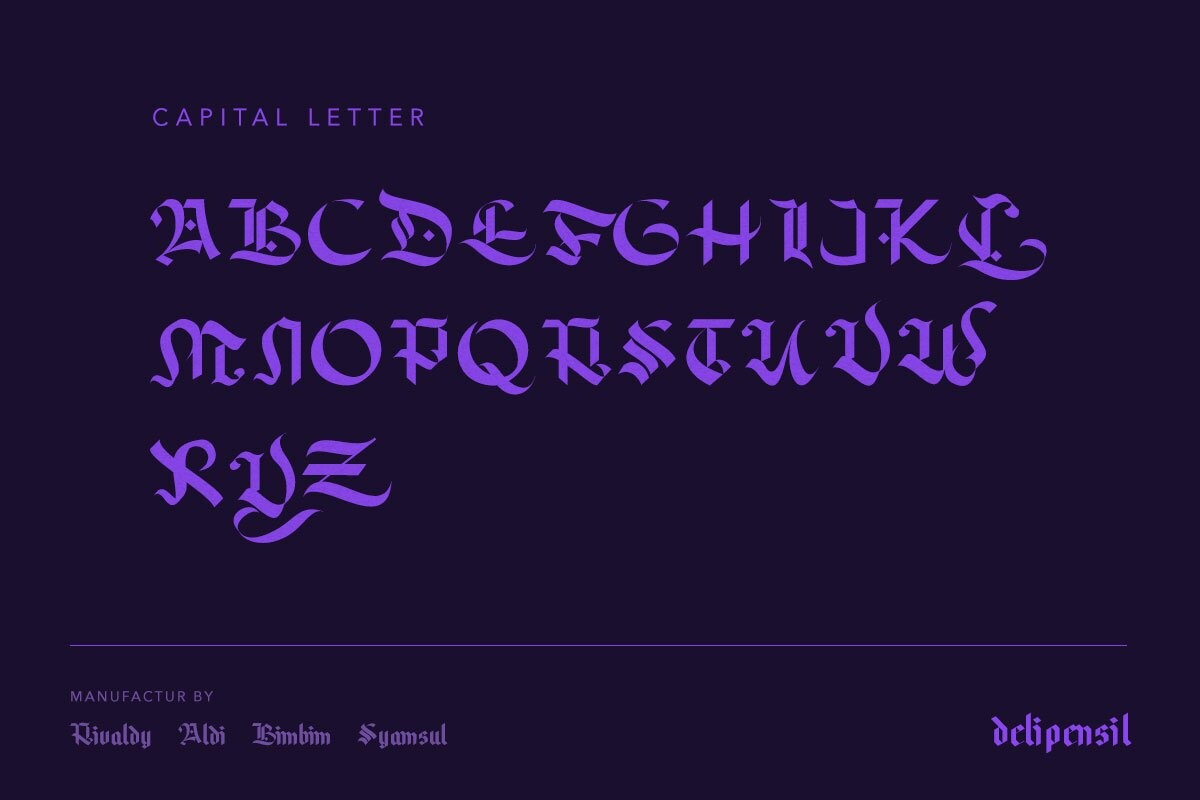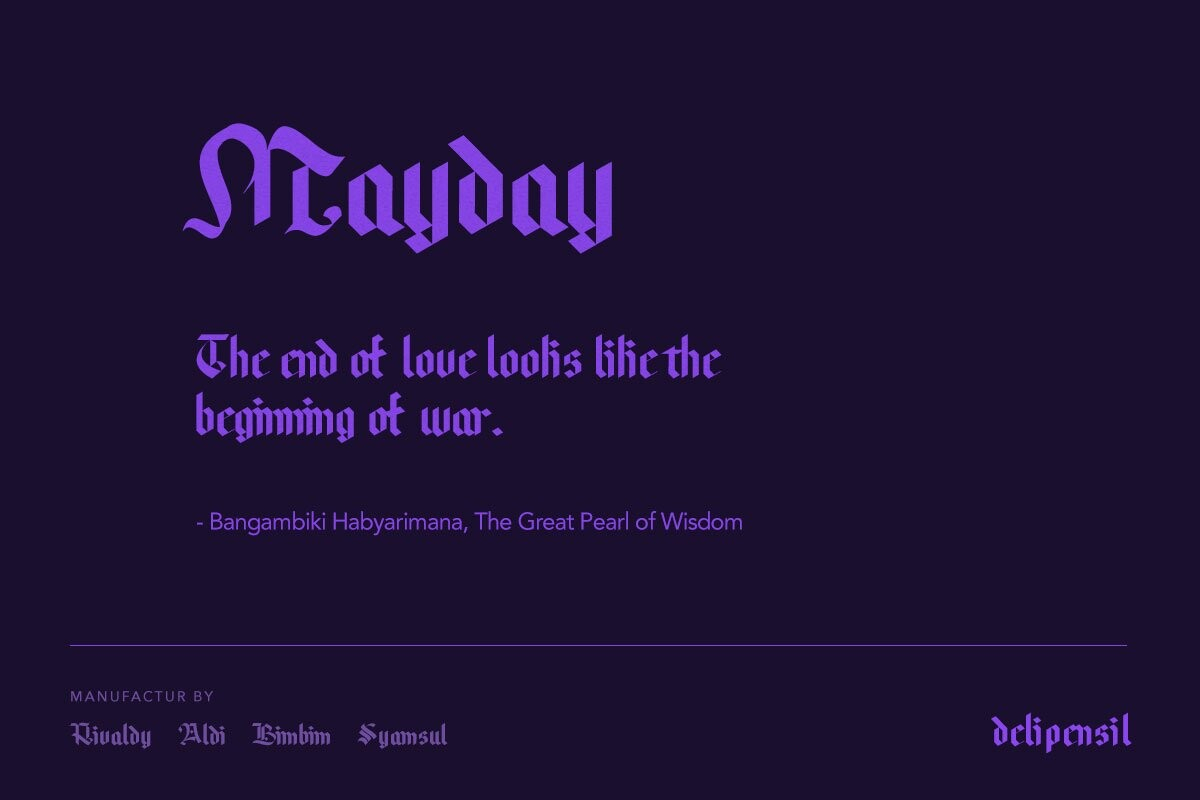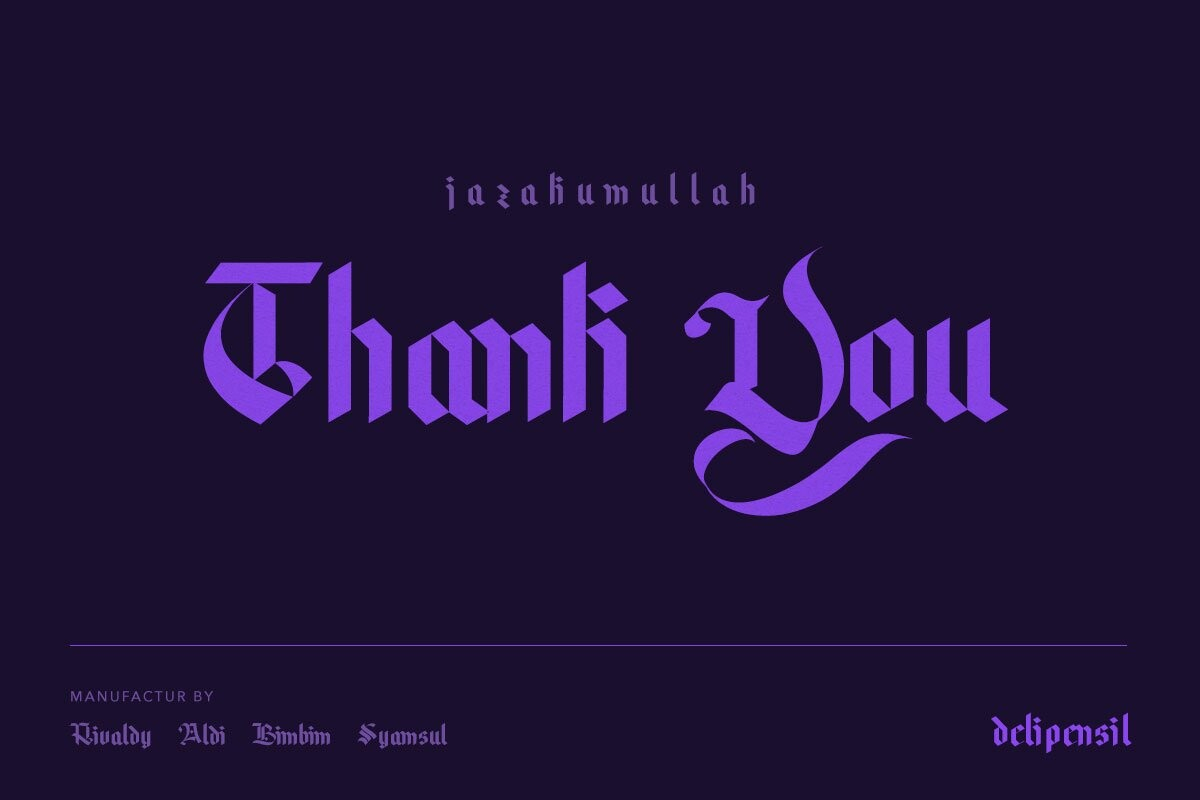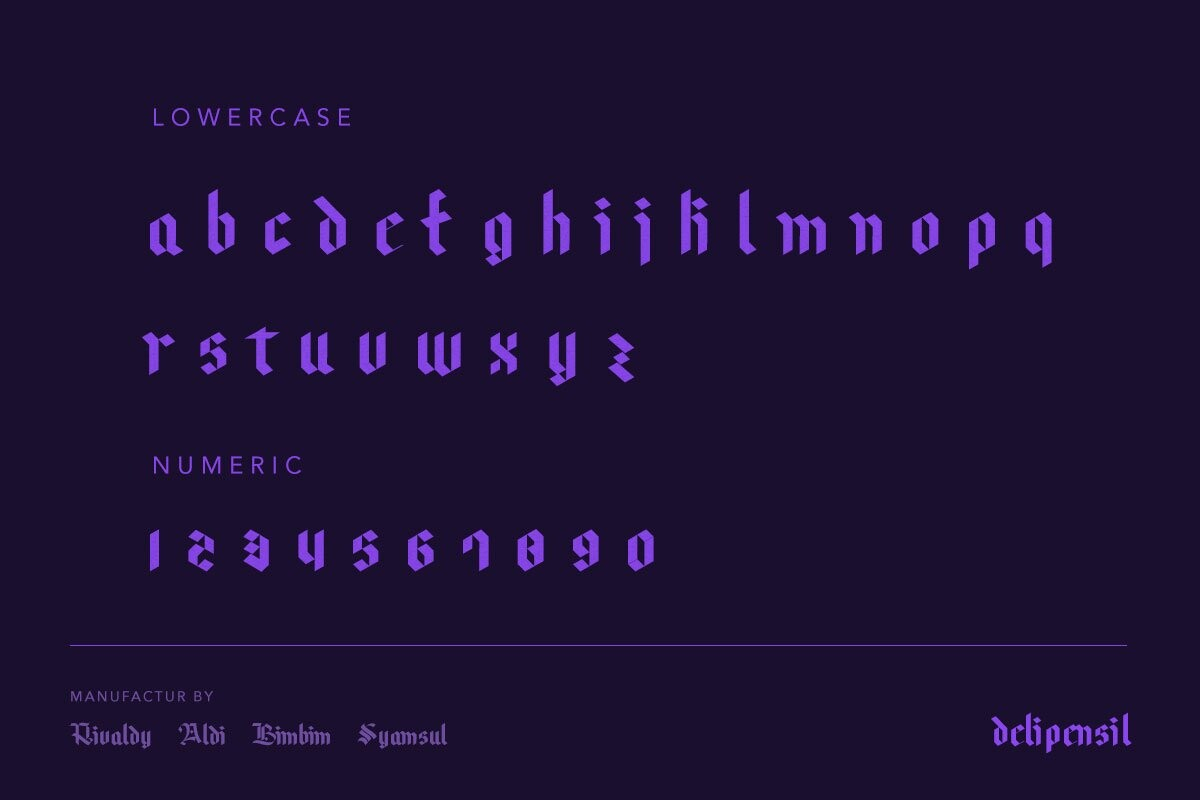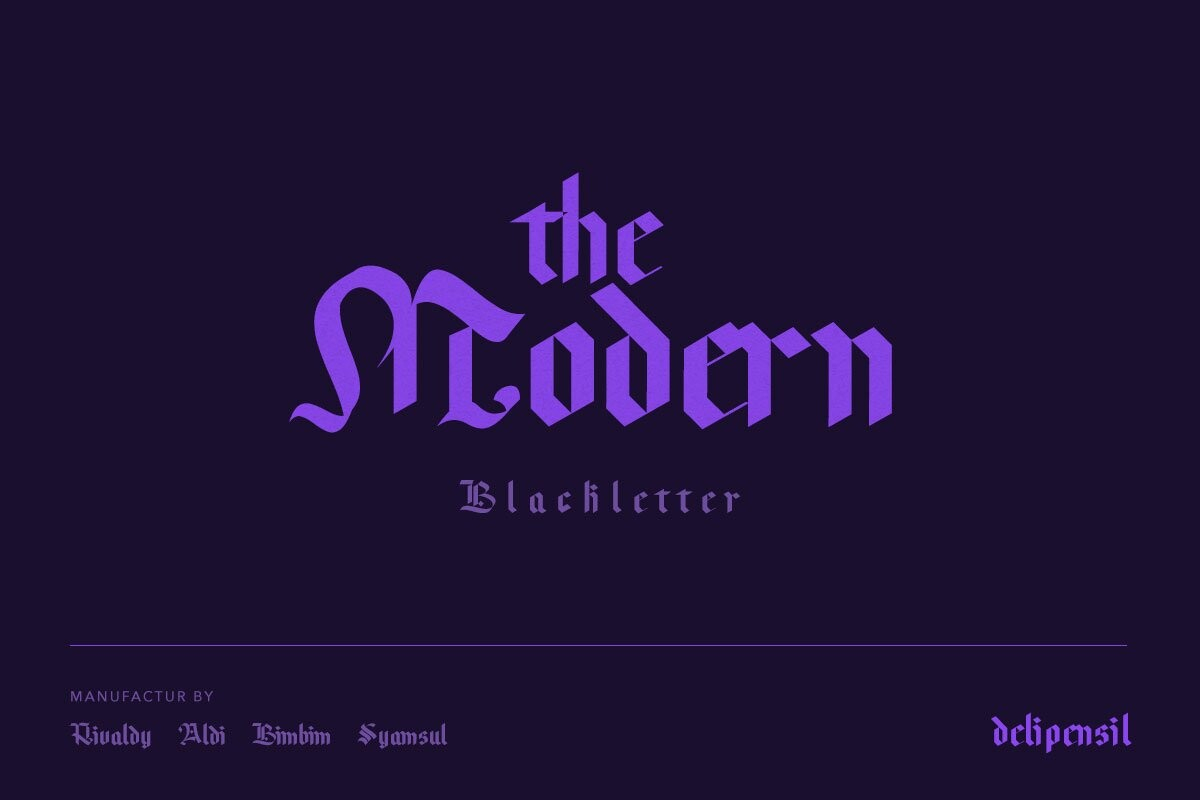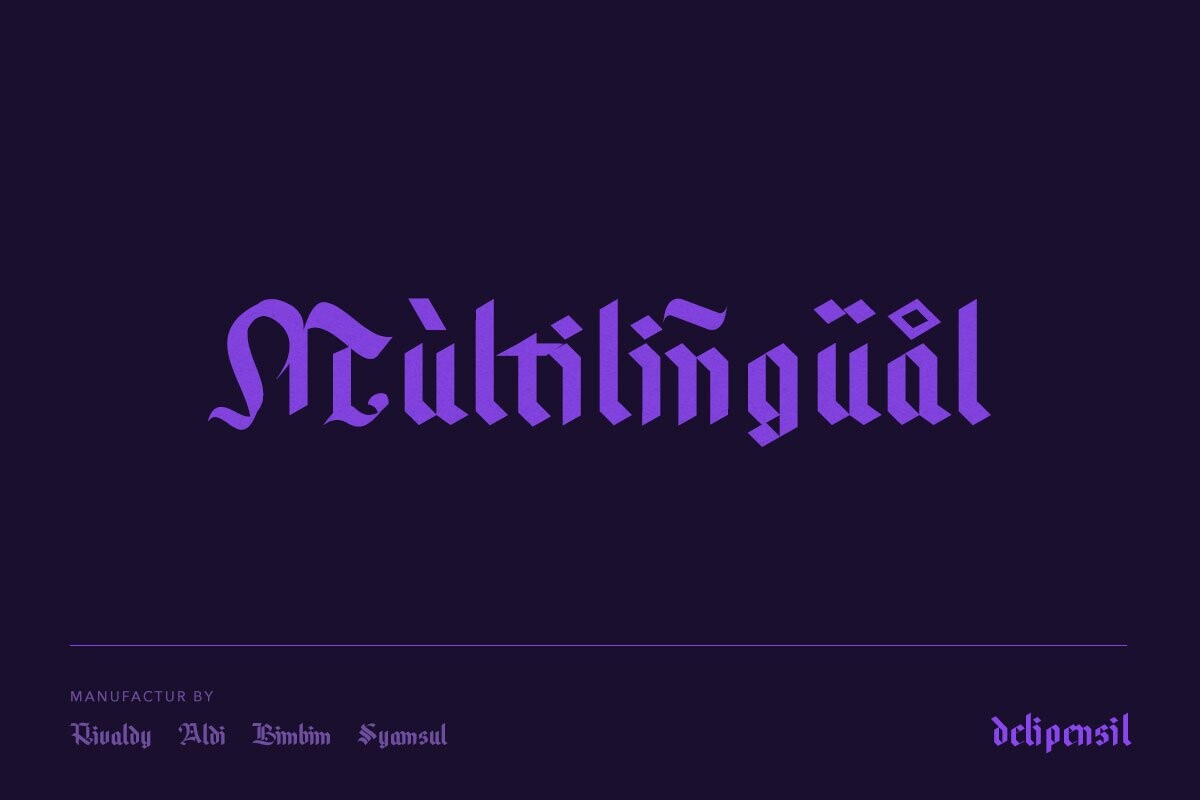
Woliy Font
About Woliy Font
Woliy Medium Font is a striking Blackletter typeface with a distinct and cool style. Its unique characters exude cleanliness and captivating aesthetics, making it an ideal choice for tattoo lettering, logo design, display text, Halloween-themed projects, posters, clothing designs, and much more.